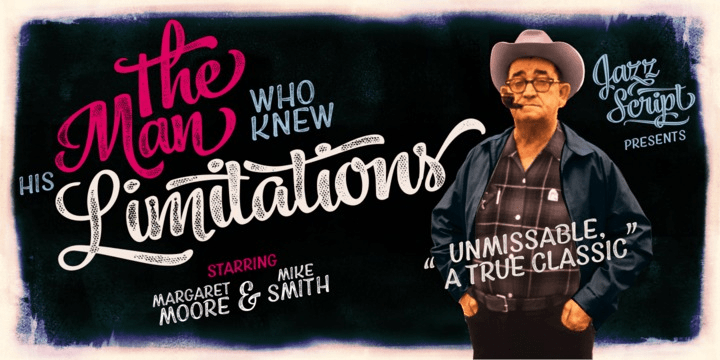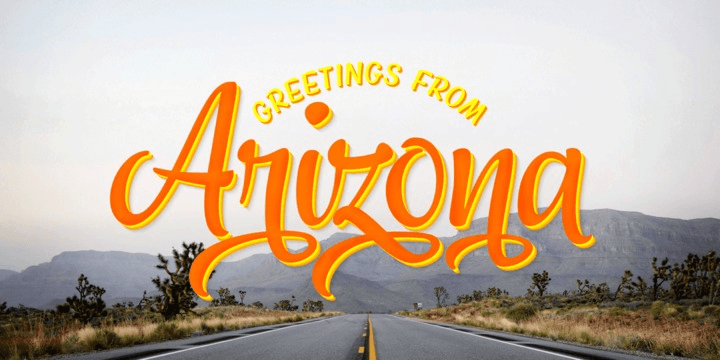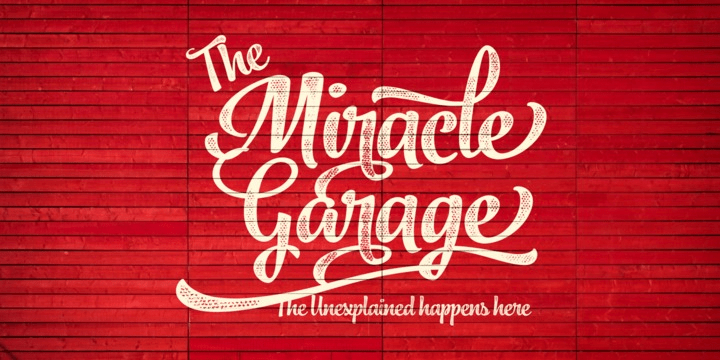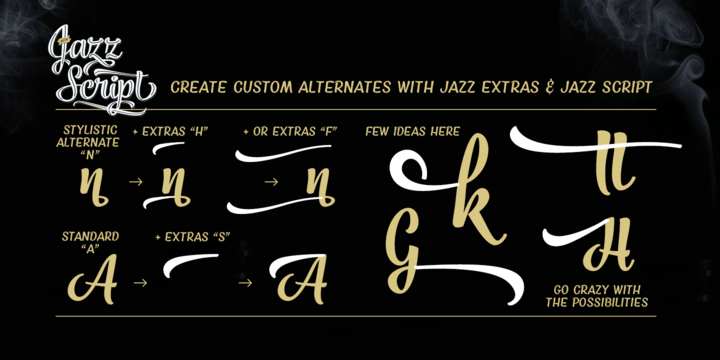
About Jazz Script
Jazz Script is a groovy font family of two weights of the Script, a vivid set of Caps and Extras to spice up your designs or create custom letters with extra swashes. Inspired by 50s and 60s American lettering but polished with sharp but smooth vector…